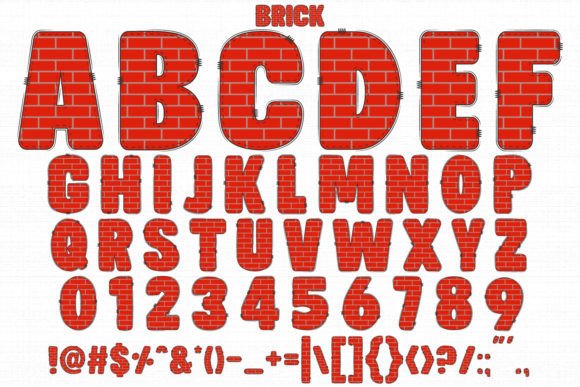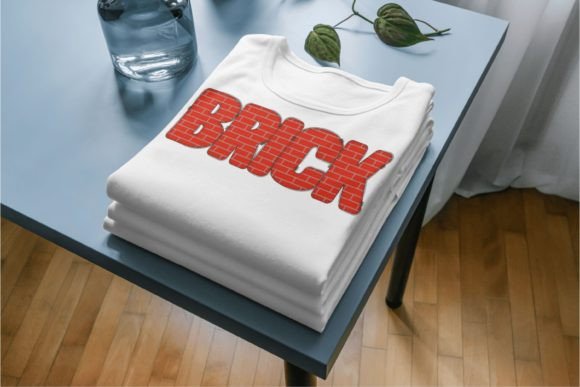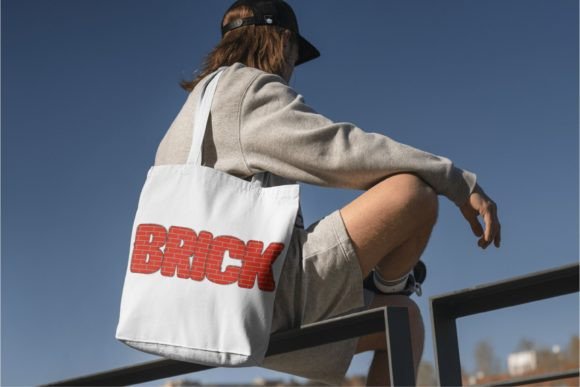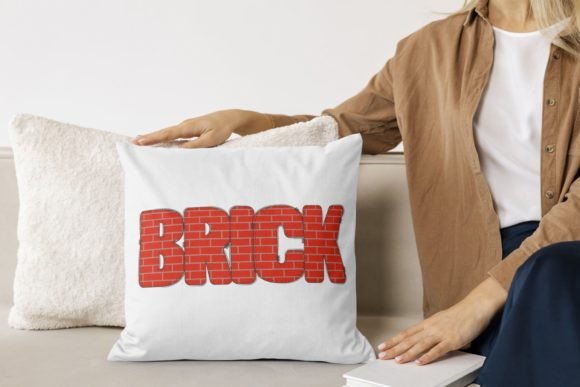
The Ultimate Design Game-Changer: Brick Font
I’ll never forget the time I was working on a children’s book project, and I just couldn’t find the right font to bring the story to life. The design was playful, fun, and outdoorsy, and I needed a font that would match that vibe. That’s when I stumbled upon the Brick font, and let me tell you, it was love at first sight! 💕
The Brick font is a color font with a beautiful brick skin texture that adds a unique touch to any design. It’s perfect for nature-themed projects, children’s books, and even crafty DIY designs. In this article, I’ll share my honest review of the Brick font, a practical guide on how to use it, and some tips on similar fonts you might love.
- ✨ Unique texture: The brick skin texture is unlike any other font out there, making it a great addition to your font library.
- ✅ Versatile: Despite its specific texture, the Brick font is surprisingly versatile and can be used for a wide range of projects.
- 🌟 Easy to read: The font is clear and easy to read, making it perfect for body text or headings.
- 🎨 Customizable: With OpenType features and glyphs, you can customize the font to fit your design needs.
- 🤔 Limited use cases for formal designs: The Brick font is playful and textured, which might not make it suitable for formal or professional designs.
- ⚠️ Not ideal for small text: Due to its textured nature, the font might not be the best choice for very small text sizes.
Designer Inspiration: The Story Behind Brick Font
The Brick font was inspired by the classic, timeless look of brick walls and the nostalgia of childhood memories. The designer wanted to create a font that would evoke a sense of playfulness and creativity, while still being easy to read and versatile. And so, the Brick font was born! 🎉
Q: What type of projects is Brick font best suited for?
A: Brick font is perfect for nature-themed designs, children’s projects, and crafty DIY designs.
Q: Is Brick font easy to read?
A: Yes, Brick font is clear and easy to read, making it perfect for body text or headings.
Q: Can I customize Brick font?
A: Yes, Brick font comes with OpenType features and glyphs that allow for customization.